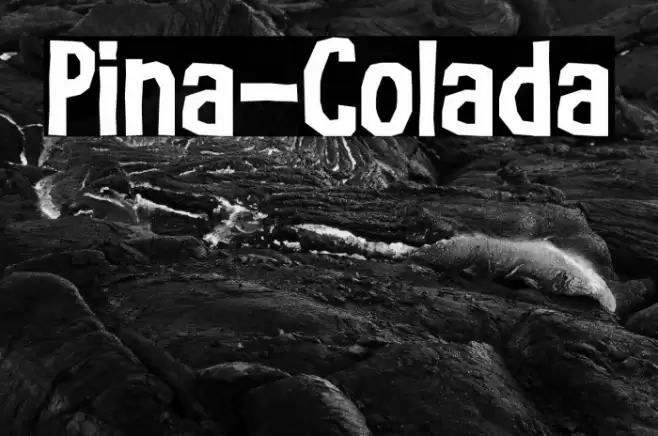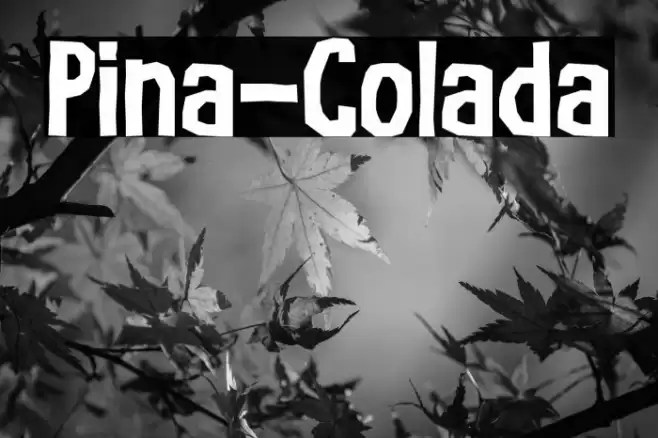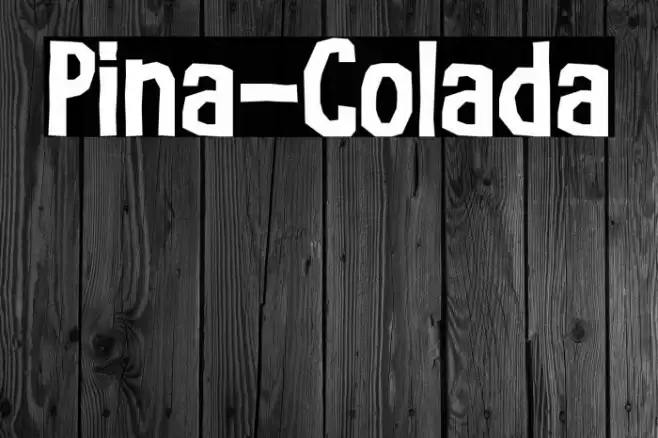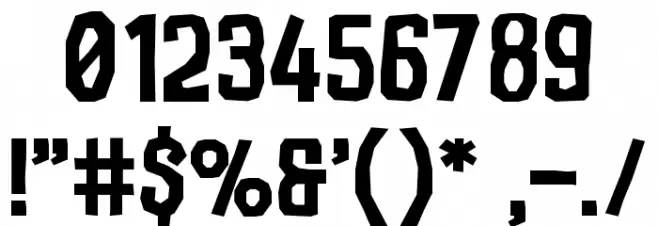
Pina-Colada Font
Pina-Colada Description
This font features a bold and playful design with a hand-drawn aesthetic. The characters have a slightly irregular shape, giving them a unique and informal appearance. The uppercase and lowercase letters maintain a consistent style, with thick strokes and angular edges. Numbers and special characters follow the same design principles, ensuring a cohesive look across all glyphs. The font's quirky and artistic style makes it stand out, perfect for projects that require a touch of creativity and fun.
A bold, playful font with a hand-drawn, irregular style from Uncategorized fonts.
- Font: Pina-Colada
- Proposed Projects: Ideal for children's books, creative posters, playful branding, and artistic projects.
- Overall Style: Playful, Artistic